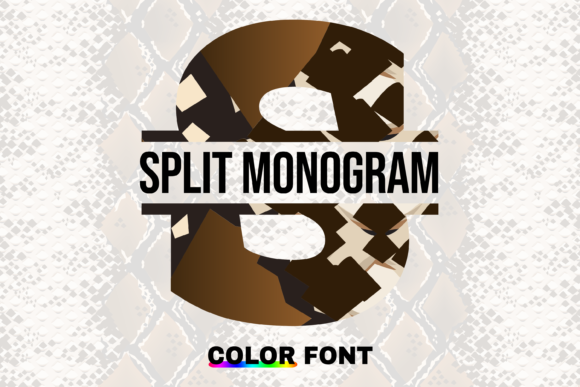
Unleash your creativity and let your imagination run wild with Snake Split Font, a font family that's not just a collection of letters and symbols, but a portal to a world of endless creative possibilities, sure to leave a lasting impression on your designs. Its vibrant colors and playful snake elements add a touch of whimsy and fun to any project, making it the perfect choice for those seeking a font that's both unique and captivating.
Snake Split Font is a visual masterpiece that speaks to your emotions, evoking a sense of joy and wonder with every stroke. Its unique design makes it ideal for a myriad of applications, from custom designs and DIY crafts to personal projects that demand a touch of creativity. Whether you're creating invitations, posters, logos, or simply adding a personal touch to your digital endeavors, Snake Split Font is the perfect companion for your artistic journey.
This font family is more than just a tool; it's an extension of your personality, a reflection of your vibrant spirit. With its captivating colors and playful elements, Snake Split Font transforms your designs into captivating works of art, guaranteed to leave a lasting impression on all who encounter them.
With Snake Split Font, you'll never be limited by the ordinary again. Its versatility knows no bounds, allowing you to effortlessly create designs that resonate with your audience and leave them craving for more.
Don't let your designs be mundane and forgettable. Embrace the extraordinary with Snake Split Font and embark on a creative journey that will redefine your artistic horizons. Elevate your projects to new heights, capture hearts, and turn heads with every design you create.